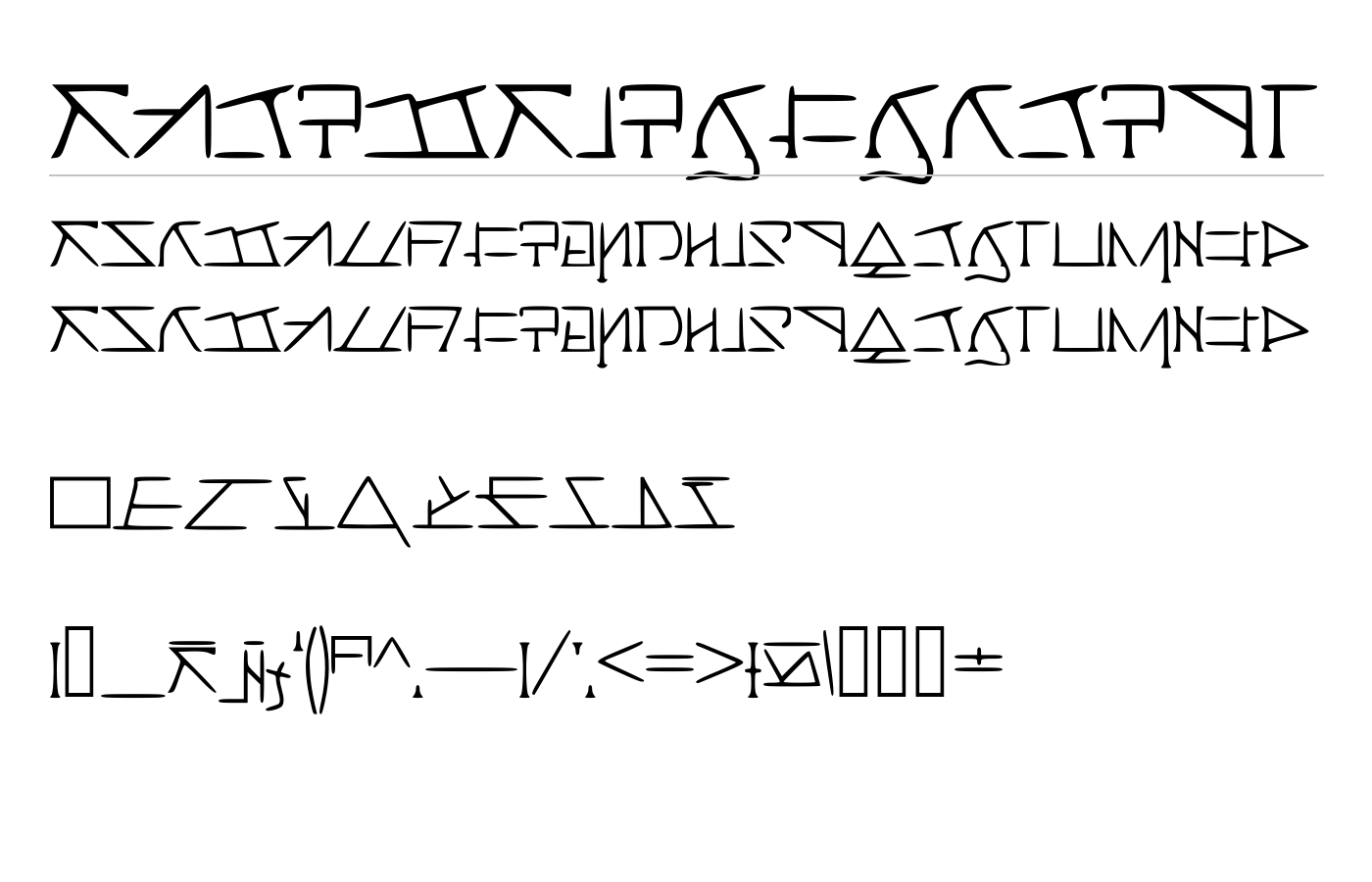
AeridanishScript is a unique, avant-garde sans serif font with a futuristic, almost extraterrestrial vibe, characterized by its sharp, angular letterforms and irregular stroke widths. Its narrow, geometric shapes convey a mysterious and tech-inspired personality, making it ideal for use in sci-fi branding, games, or creative projects that seek to evoke innovation and otherworldliness. This font works best in headlines or display settings where its distinct style can capture attention and spark curiosity.
AeridanishScript Font